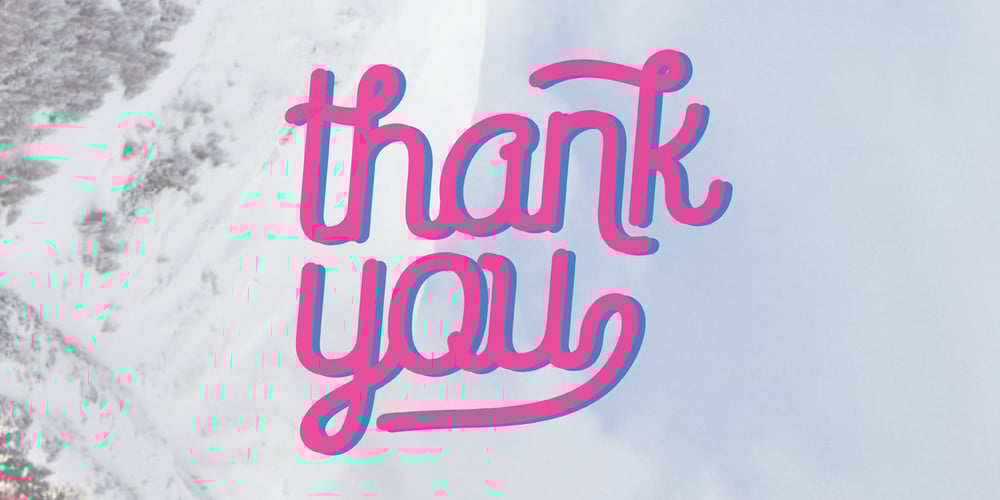
Saffa Script Monoline Font Family was designed by Lukman Hidayat and published by Viaction Type.Co. Saffa Script Monoline contains 1 styles and family package options. Saffa Script Monoline is a letter with original handwriting style, nice applied in various products. Complete with multilingual characters, ligature, alternate and swash. It is suitable for quote, clothing design, vintage logo, label, poster, packaging design and other designs. File Include: Saffa Script Monoline.otf Saffa Script Monoline.ttf Features: Uppercase Lowercase Multilingual Punctuation & Symbol Stylistic Style Ligature Swash I hope you enjoy and thank you.